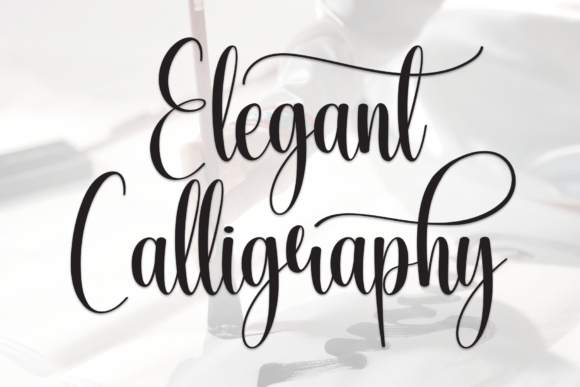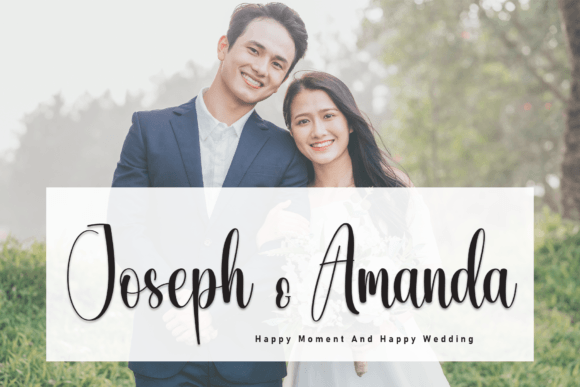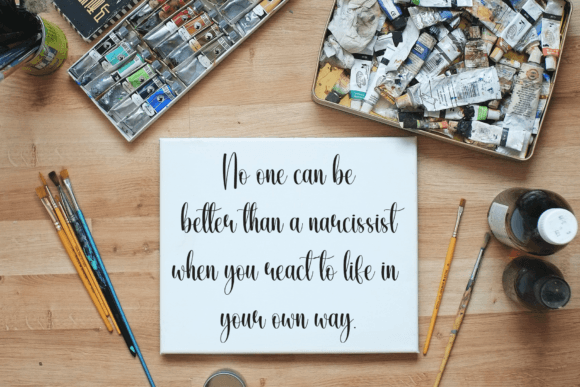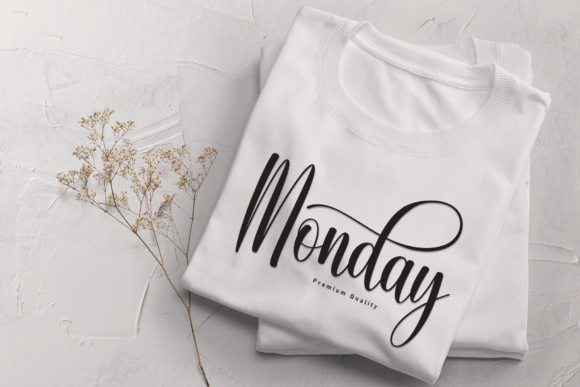
Elegant Calligraphy Font: Perfect for Wedding & Branding Design
About the Elegant Calligraphy Font
Welcome to the world of Elegant Calligraphy Font, a typeface that will inspire your next great project. Elegant Calligraphy is a stylish handwritten font that epitomizes the expressive beauty of brush lettering. With confident strokes and dynamic letterforms, it achieves a perfect blend of modernity and artistic flair. Ideal for projects seeking a bold and contemporary handwritten aesthetic, Elegant Calligraphy adds a touch of expressive elegance to your designs.
This font excels in headline applications, short text blocks for invitations or branding materials, and as an accent in logos. Its expressive nature makes it perfect for projects needing a touch of sophisticated hand-crafted quality, such as high-end fashion, boutique hotels, or artisanal food brands. Avoid using it for large blocks of body text or UI elements; the calligraphic style is not optimized for readability at smaller sizes.
Pairing Elegant Calligraphy with a clean sans-serif like Open Sans or Lato for body text provides a strong contrast, balancing the handwritten flourish with modern legibility. For a more luxurious feel, consider a classic serif such as Garamond or Didot. A geometric sans-serif like Futura could also work well, offering a modern counterpoint to the font’s organic forms.
Elegant Calligraphy projects a bold yet elegant personality; sophisticated, yet approachable. Its confident strokes convey a sense of luxury and artistry without appearing overly fussy.
Elegant Calligraphy Font Usage Examples
Elegant Calligraphy Font Example